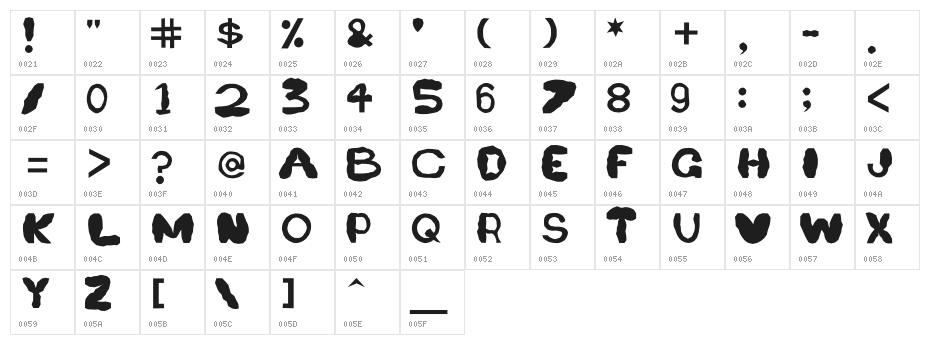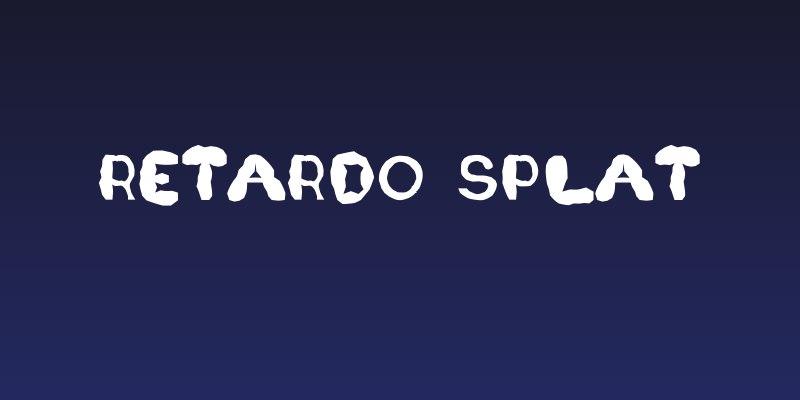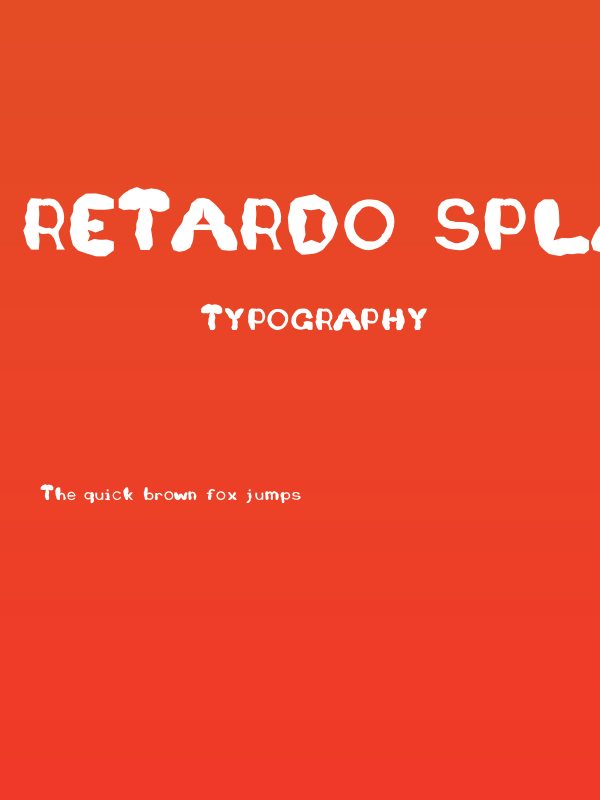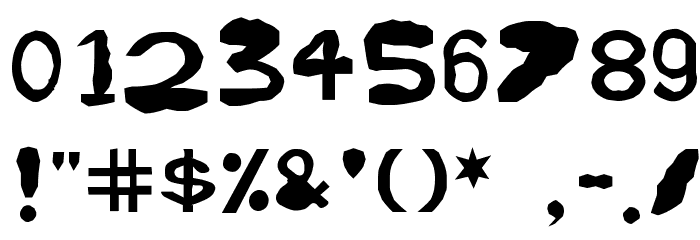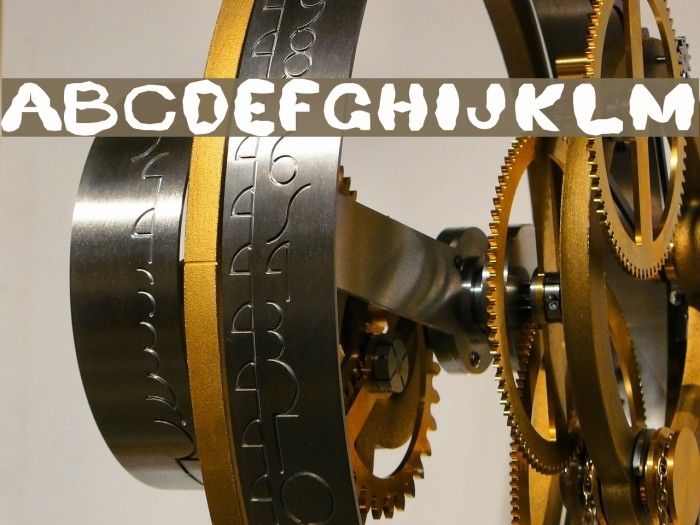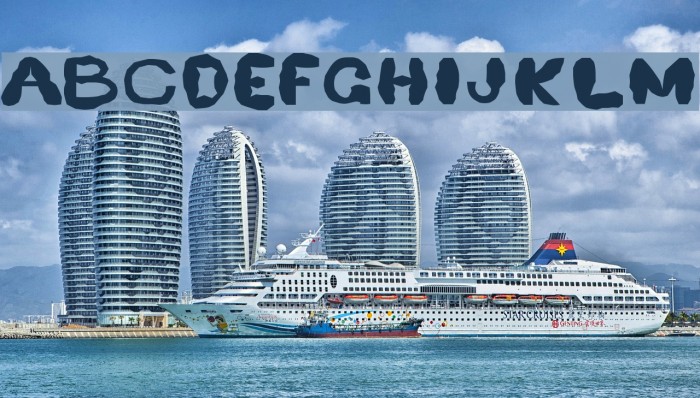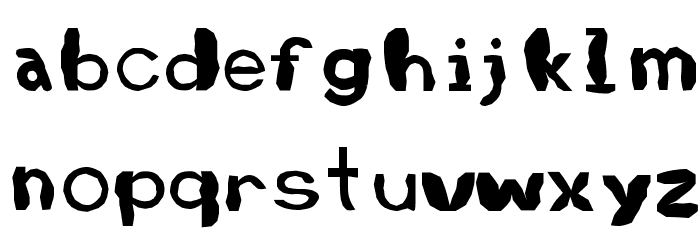
Retardo Splat Font
Retardo Splat Description
This font features a playful and irregular design, with each character appearing as if it has been splattered or painted with a brush. The letters have a bold and chunky appearance, with uneven edges that give them a dynamic and energetic feel. The uppercase and lowercase letters maintain this whimsical style, making it ideal for creative and informal projects. The numbers and special characters follow the same aesthetic, ensuring consistency across all elements. This font is perfect for projects that require a fun and eye-catching typeface.
RETARDO-SPLAT UPPERCASE
RETARDO-SPLAT LOWERCASE
RETARDO-SPLAT OTHER CHARS
| Proposed Projects | Ideal for children's book covers, playful posters, creative branding, and artistic event invitations. |